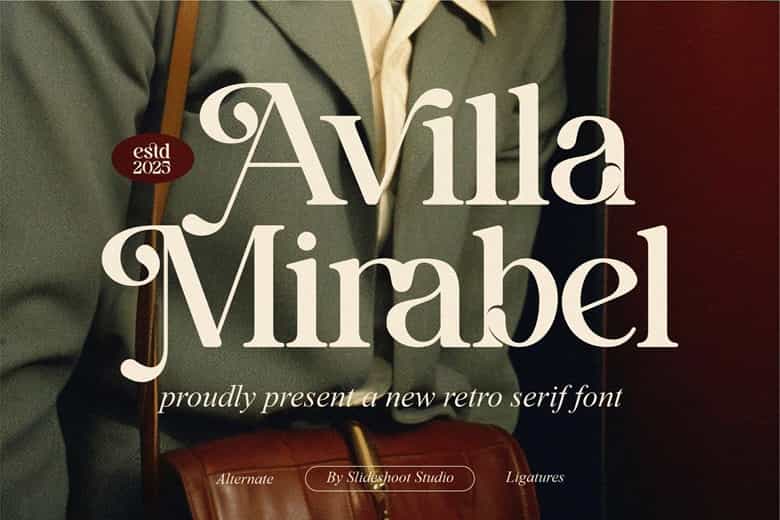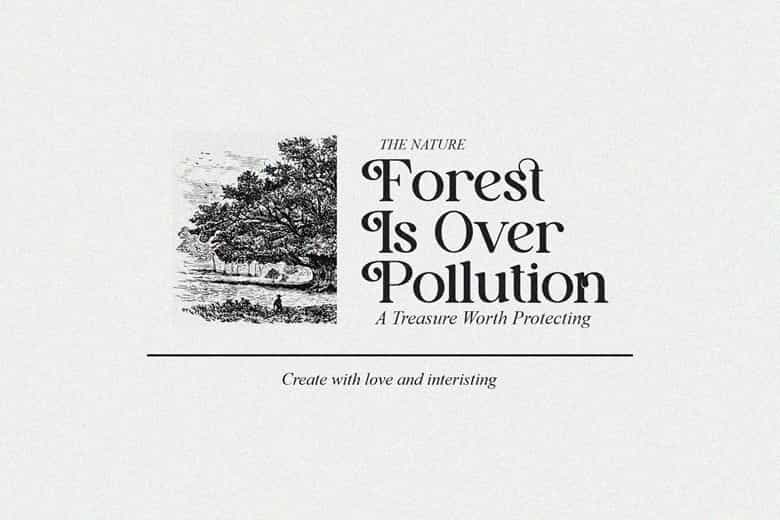
Avilla Mirabel is a serif font that is quite well-crafted and it gives a robust and elegant with the moment feel. The stylish alterations and ligatures make this font a perfect match for any task you are going to use it for. This font is beautiful and I give very warm and friendly aura in my documents or writings.